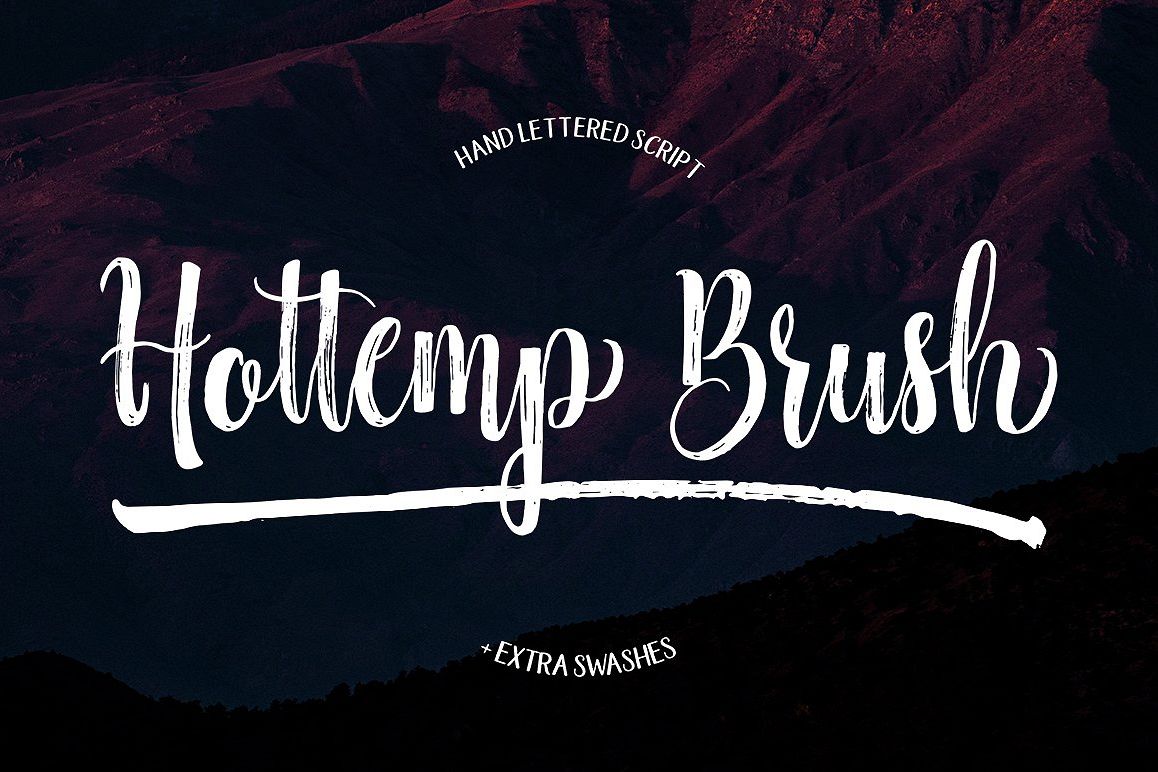
Hottemp Brush
Hottemp Brush: A fresh handwritten font, luxurious and elegant with a dancing baseline. perfect for Branding, Logos, Greeting Cards, Wedding Stationery, Quotes etc.